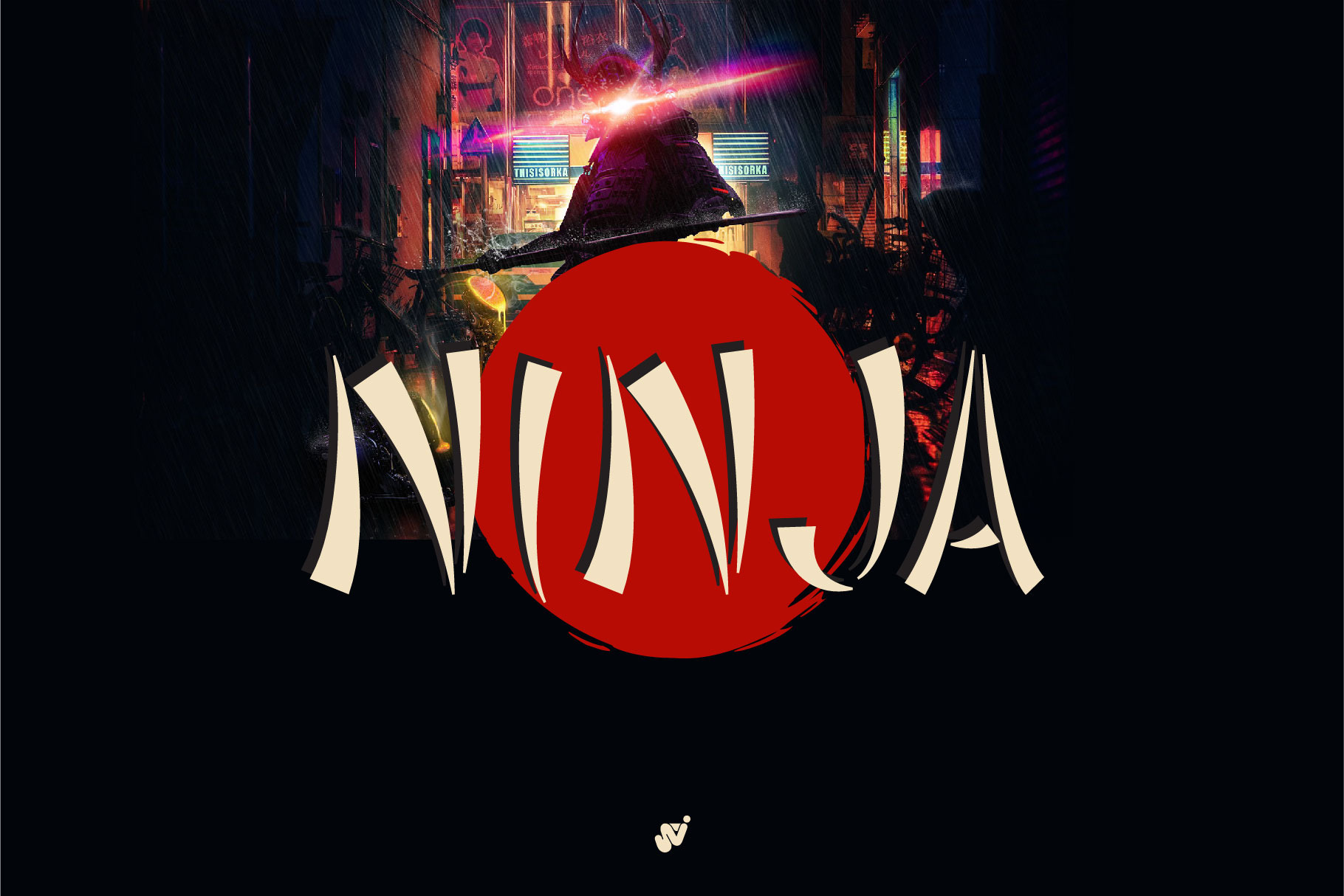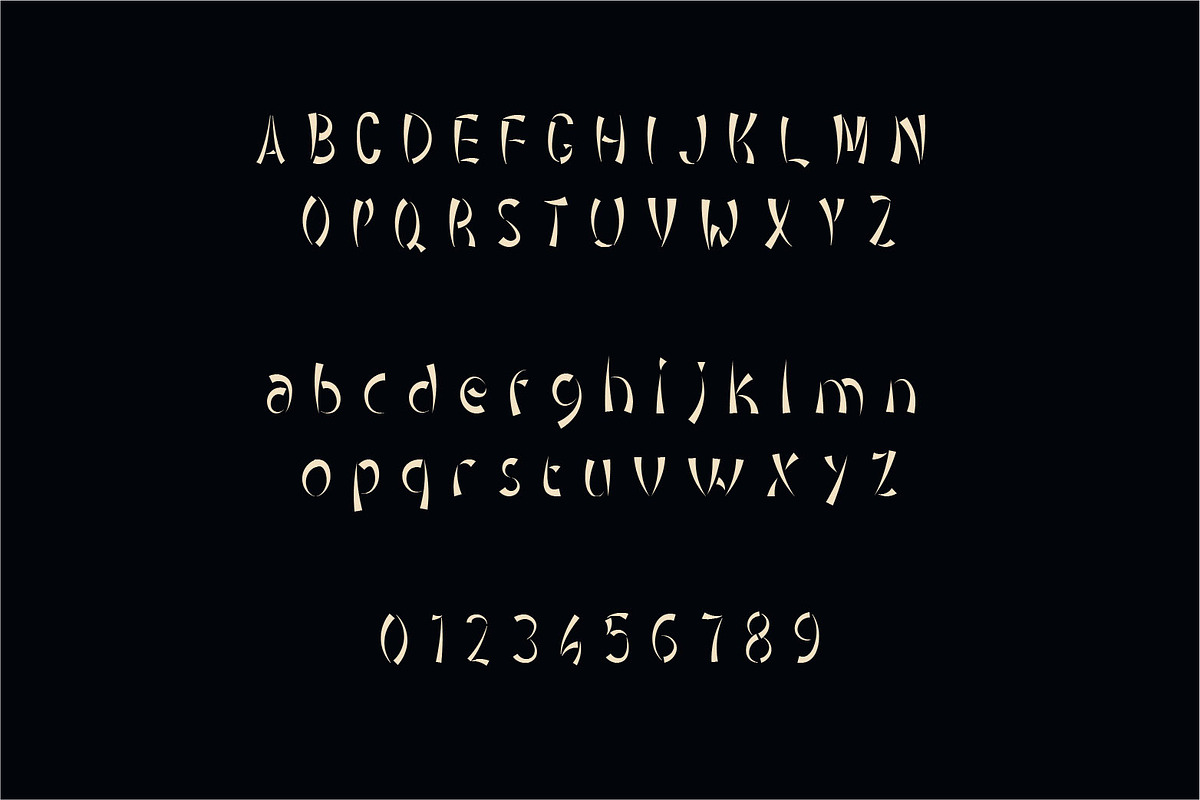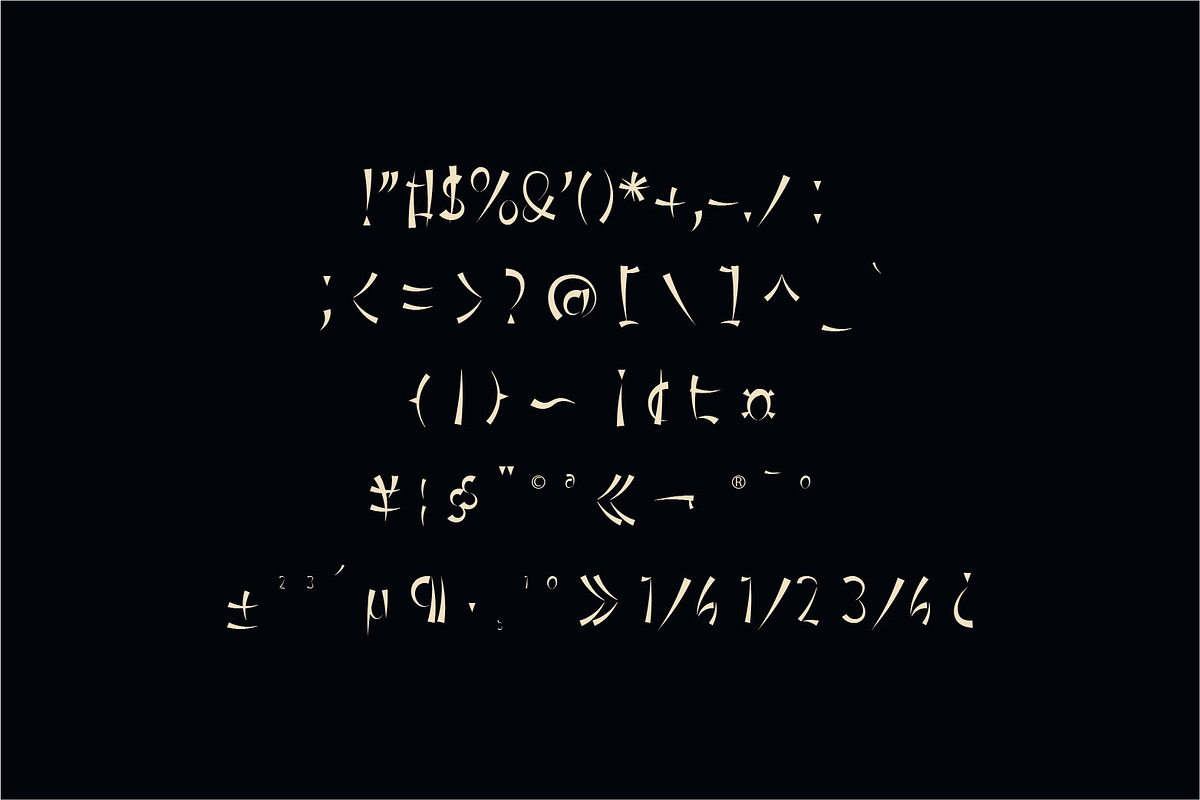
Ninja japan style font
Ninja japan style font is a handcrafted brush font, its have an asian and oriental looks, a perfect companion for your creative project that has an asian niche. Fujimaru can be used as horror effect or even the fun title for cartoon movie, just pick your style. Ninja is doing his best at the heading title,movie poster,quotes text,and so on.. Product Content :
• Character Set A-Z
• Numerals & Punctuations (OpenType Standard)